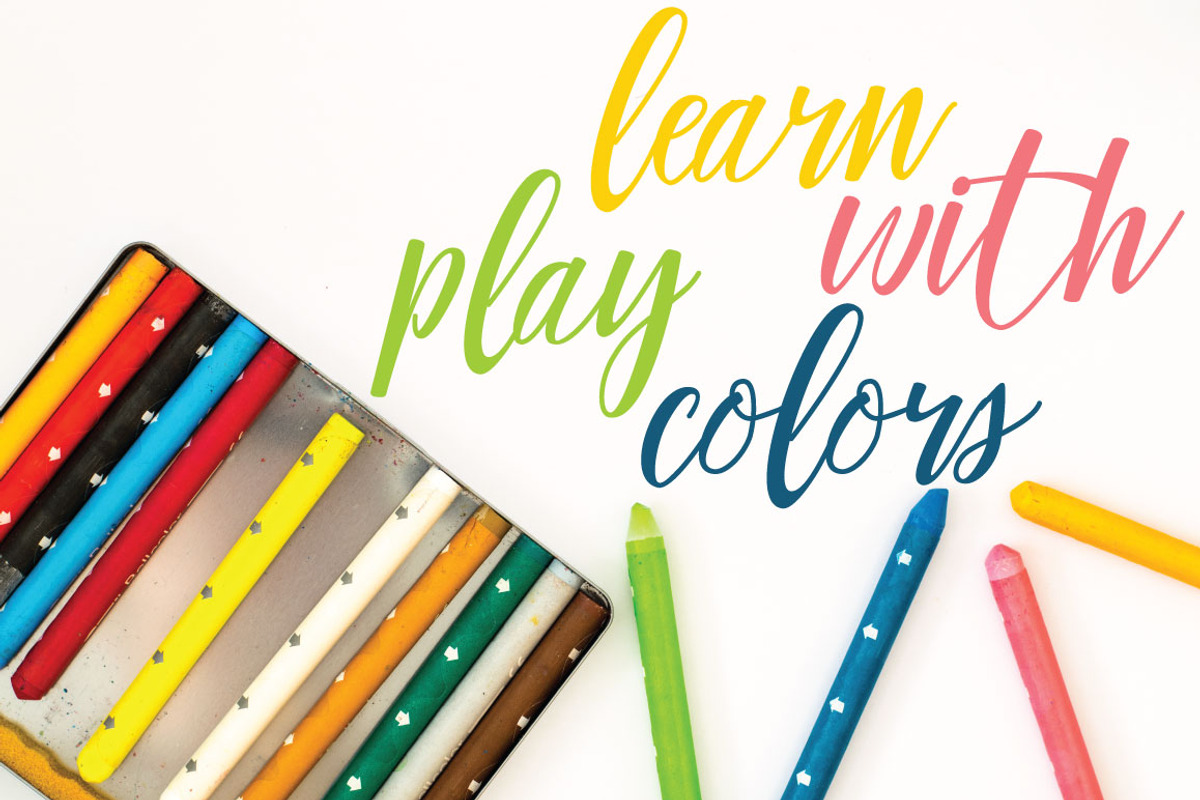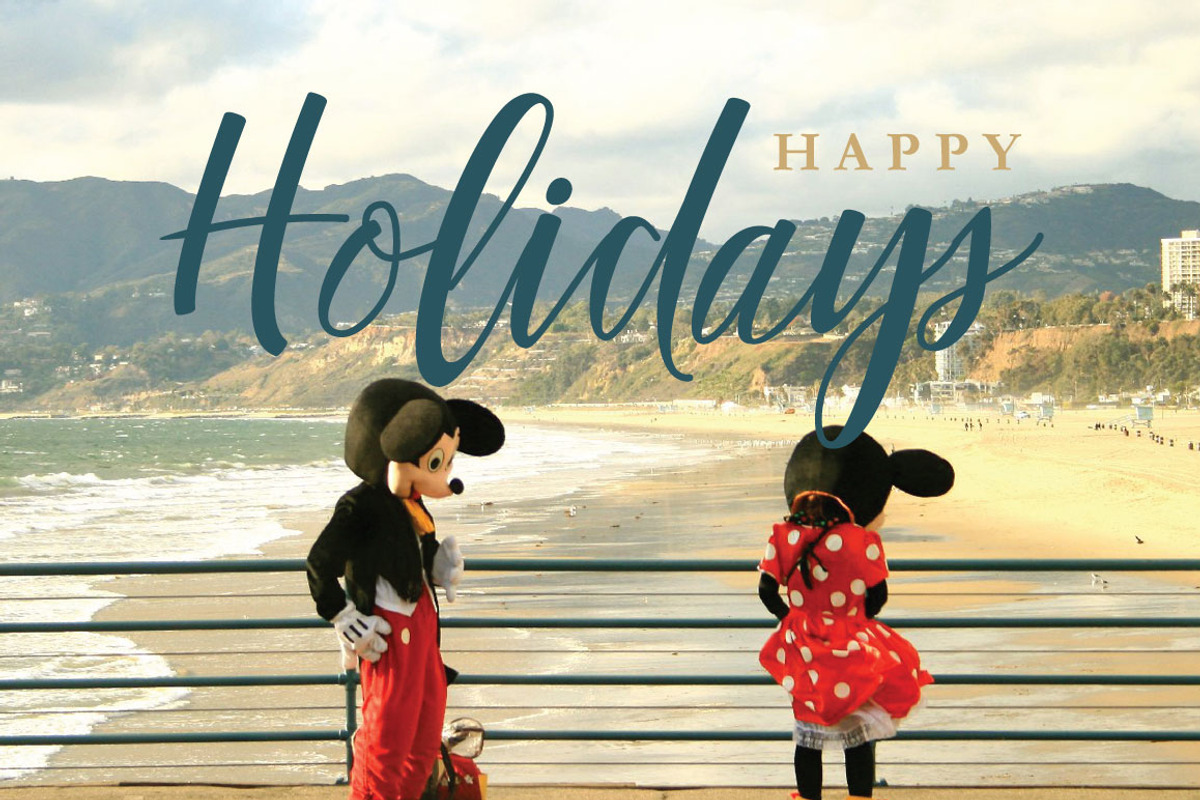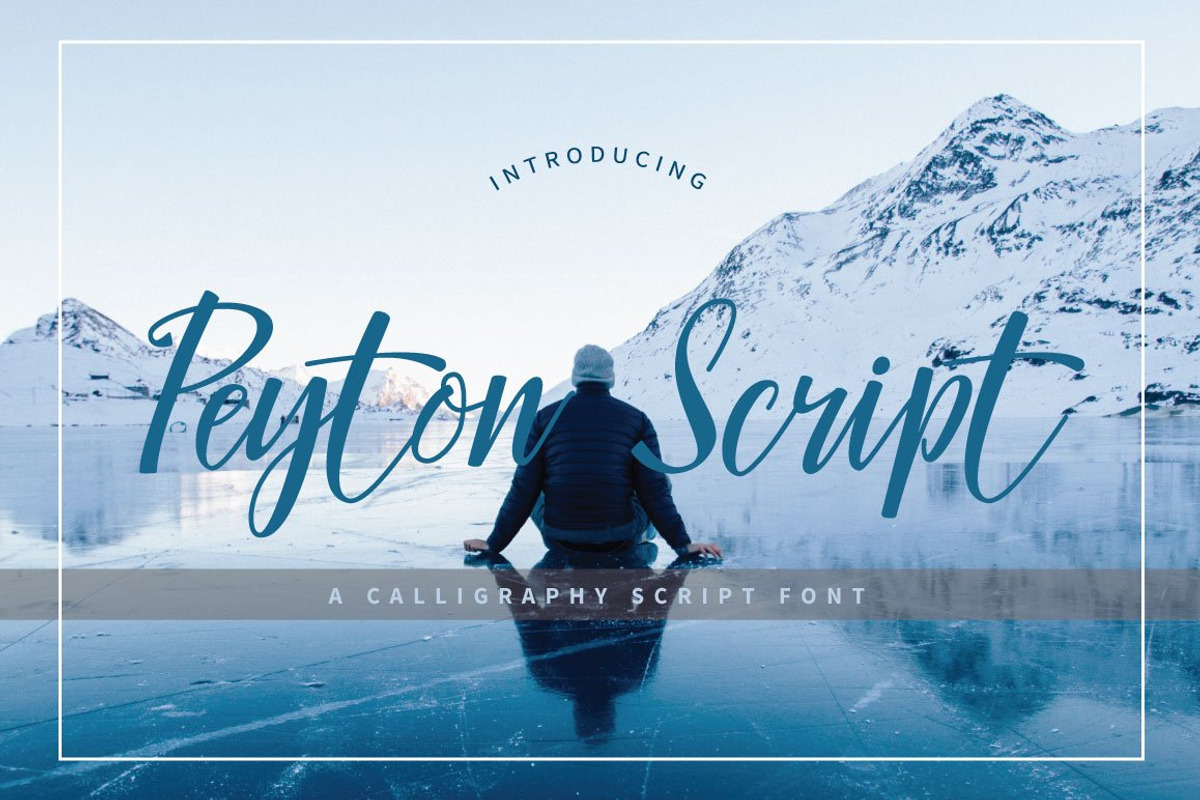
Peyton Script Typeface
Peyton Script Typeface by Face Lab is a font selected for branding, posters, packaging, typography.
- In particular would look great on, branding projects, logos, product packaging, posters, invitations, greeting cards, titles, blogs, everyth
- ;) Peyton Script calligraphy script comes with upper and lowercase characters, punctuation glyphs, numerals, ligatures and a TTF of web font
Why Peyton Script Typeface is worth a look
Peyton Script Typeface by Face Lab fits naturally into Branding, posters, packaging, typography.